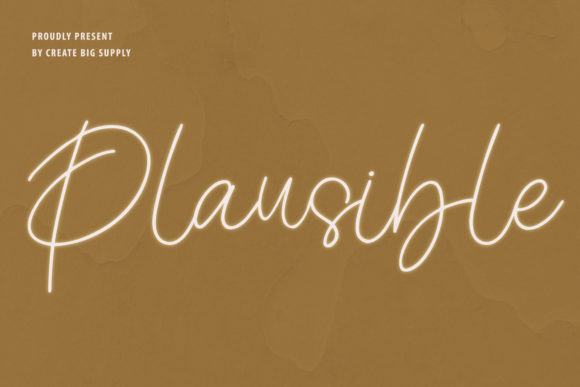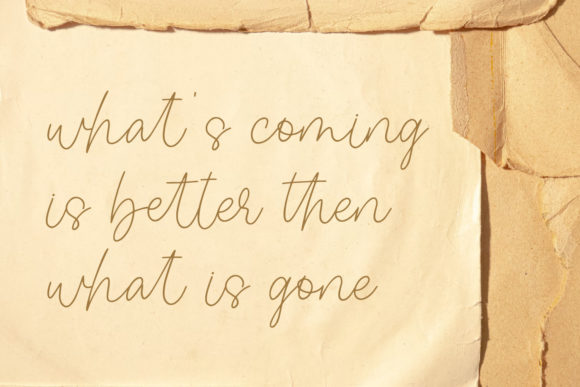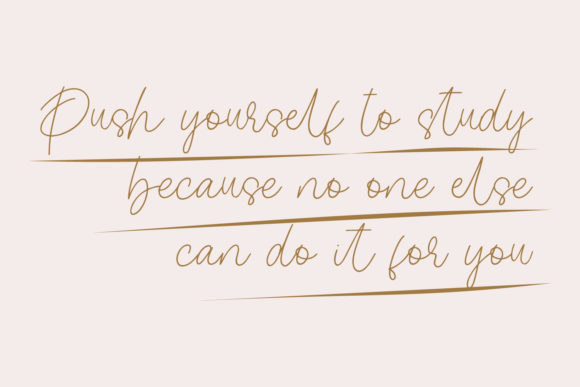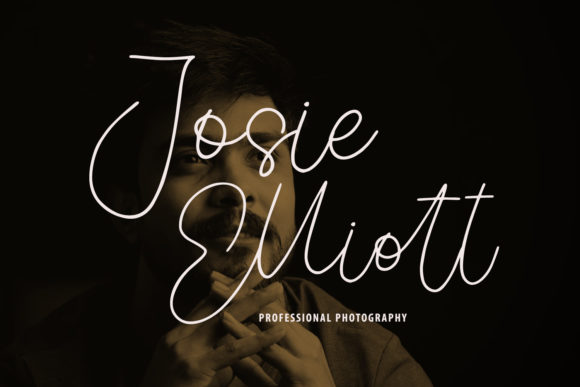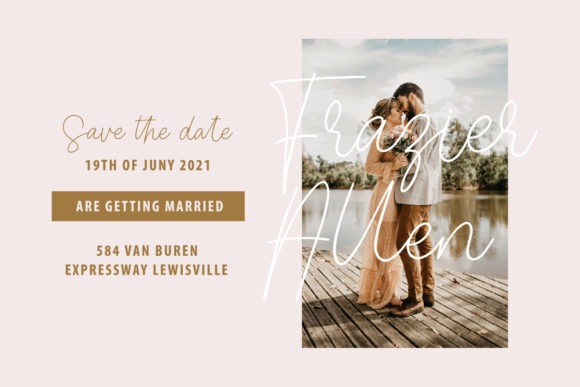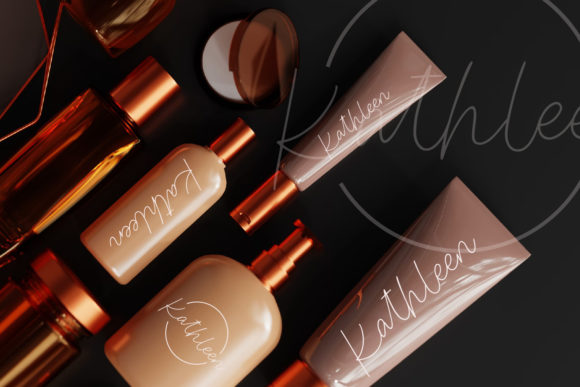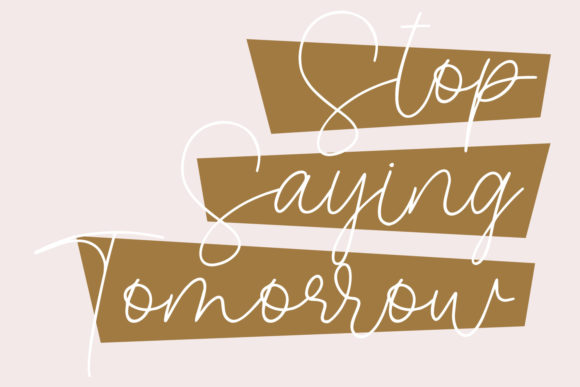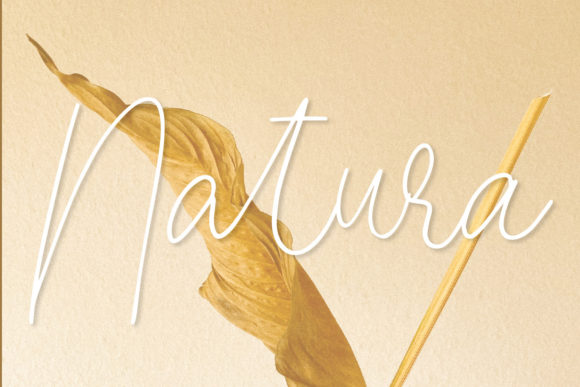
About Plausible Font
Plausible is a beautiful and light handwritten font with a unique feel and a stunning impact. It will add a luxury spark to any design project that you wish to create! Plausible is PUA encoded which means you can access all of the amazing glyphs and ligatures with ease!